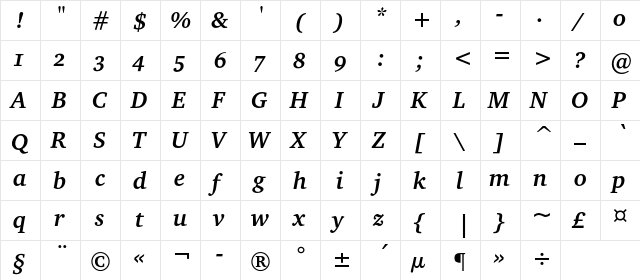
CharterOSC Bold Italic
Design Context for CharterOSC Typeface
CharterOSC is a composed and adaptable typeface that performs quietly and consistently across a wide range of design contexts. Its italic angle brings a sense of urgency and motion to the letterforms. The heavy weight commands attention and anchors typographic hierarchies.
Pro Tip: Use CharterOSC for emphasis, pull quotes, and subheadings where its slanted energy can add rhythm to the layout.